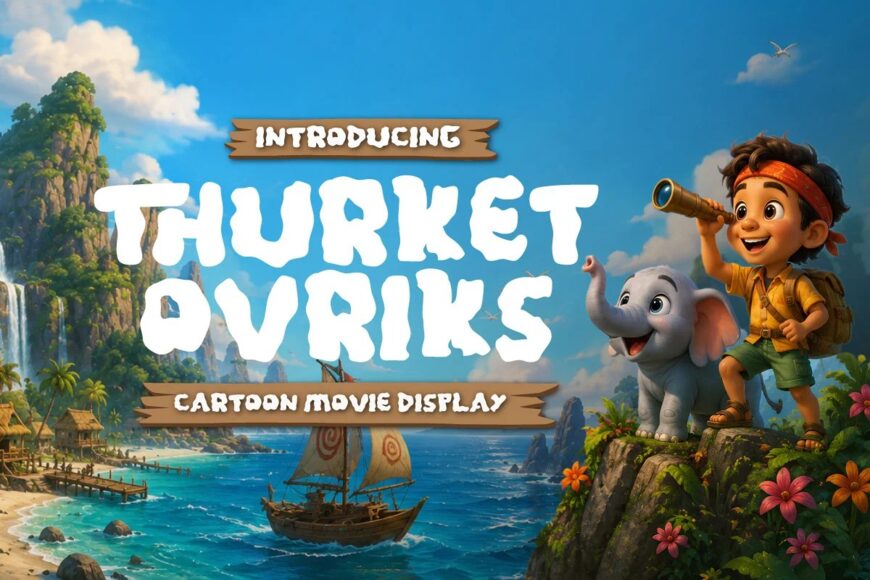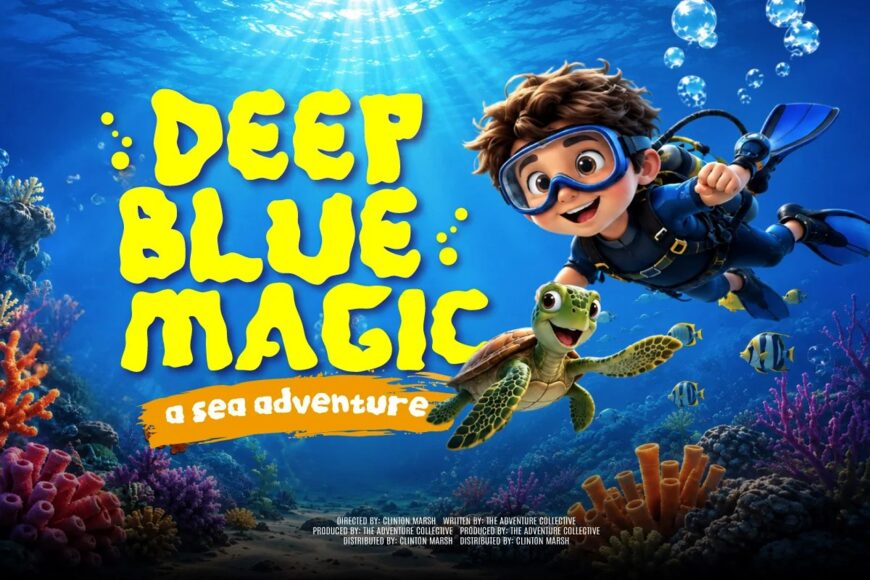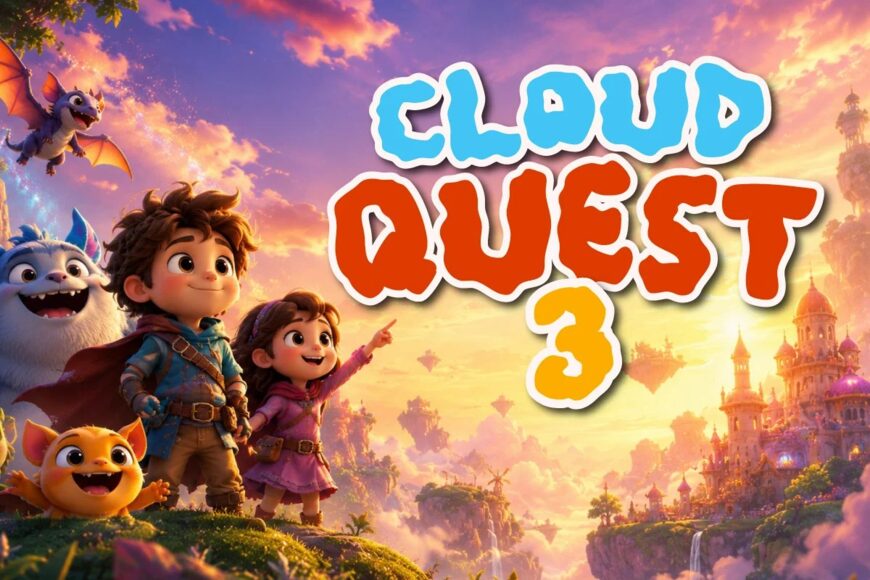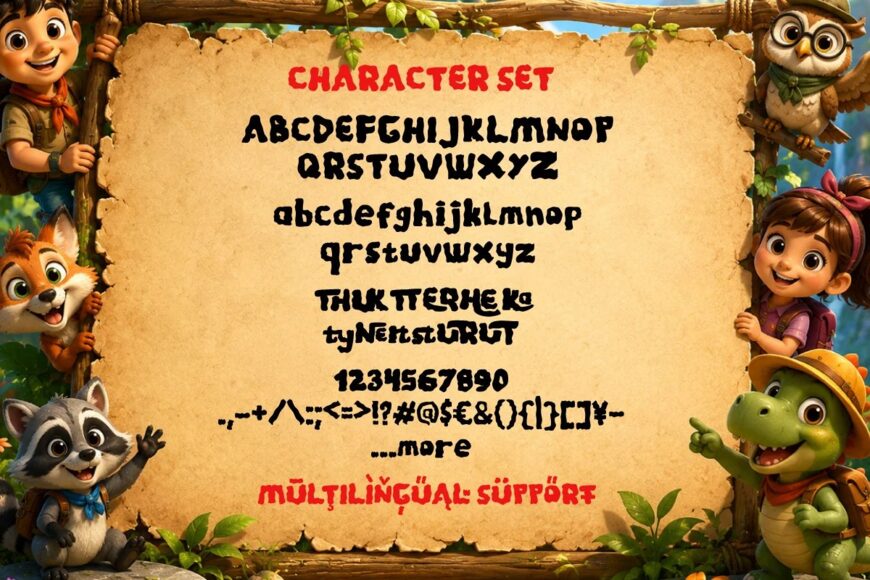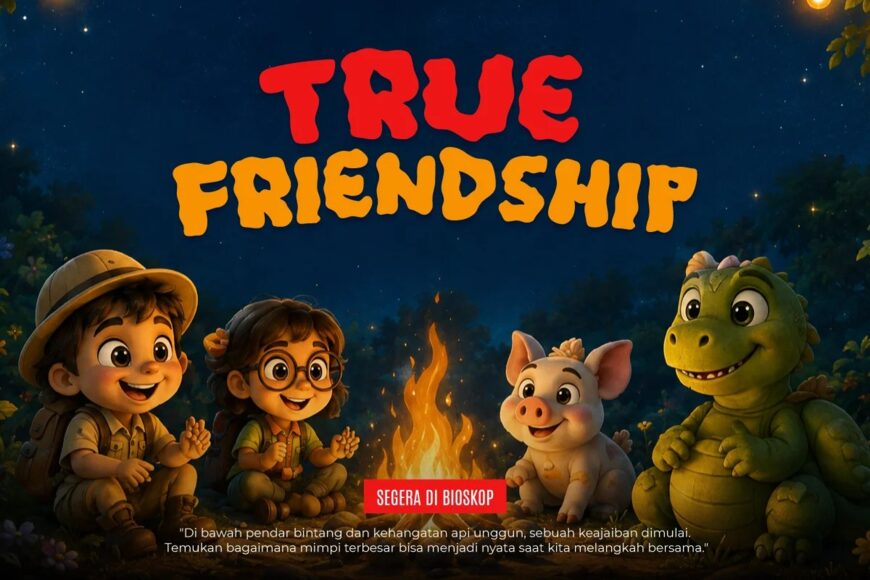
Thurket Ovriks is a playful movie cartoon font with chunky, organic, and expressive letterforms. Its cheerful, adventurous style is perfect for children’s entertainment, travel documentaries, nature education, and family-friendly projects. Use it for movie titles, animated posters, children’s books, adventure branding, YouTube thumbnails, merchandise, promotional materials, and studio graphics.